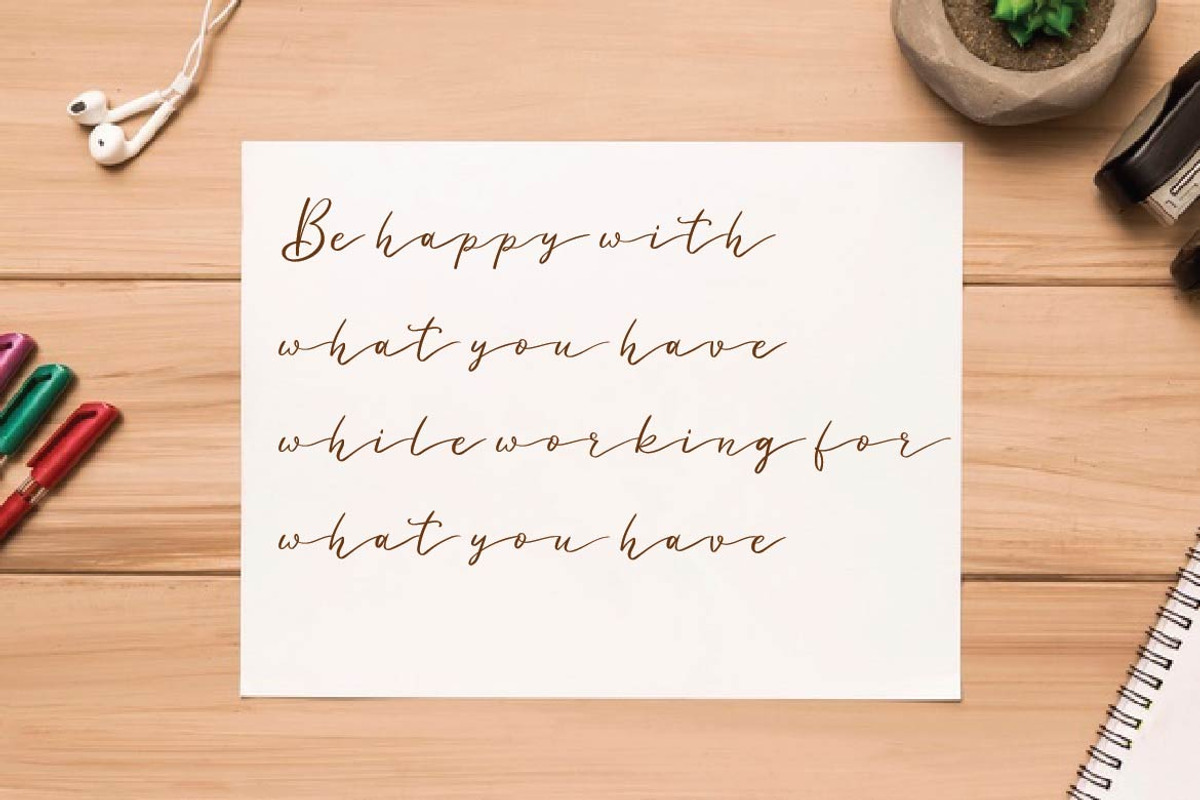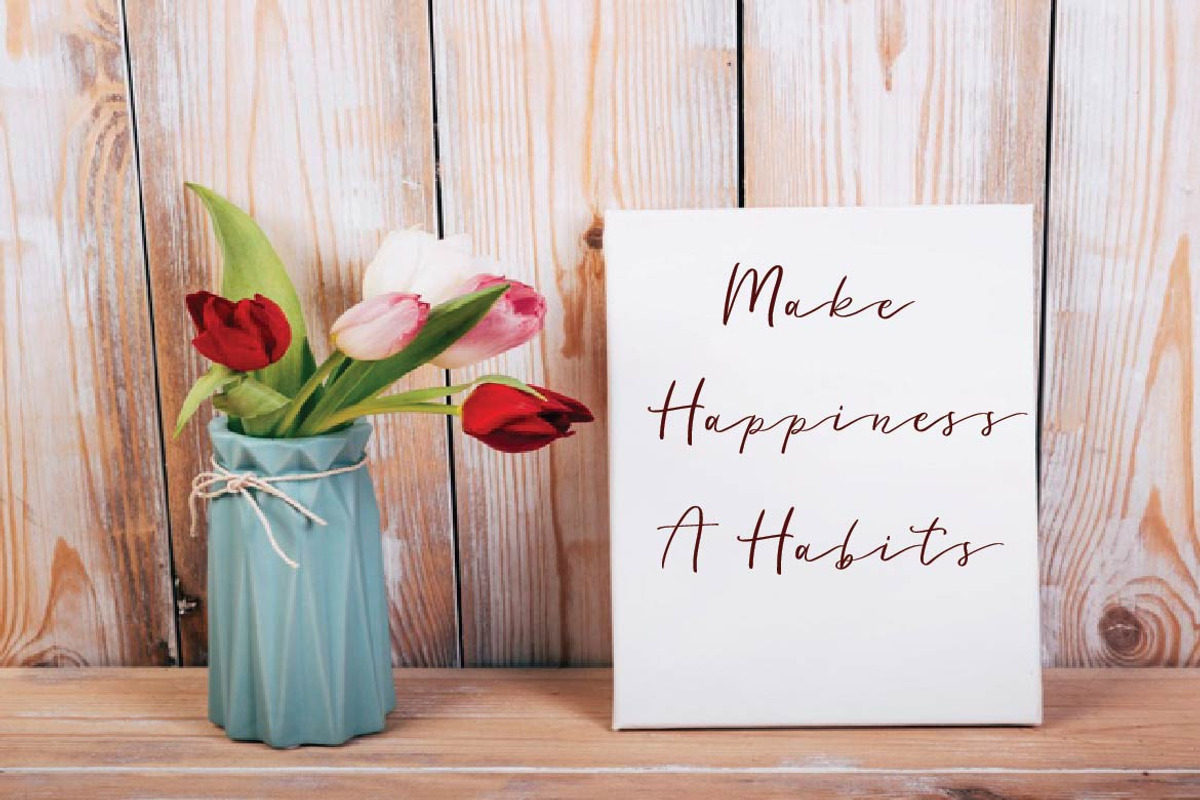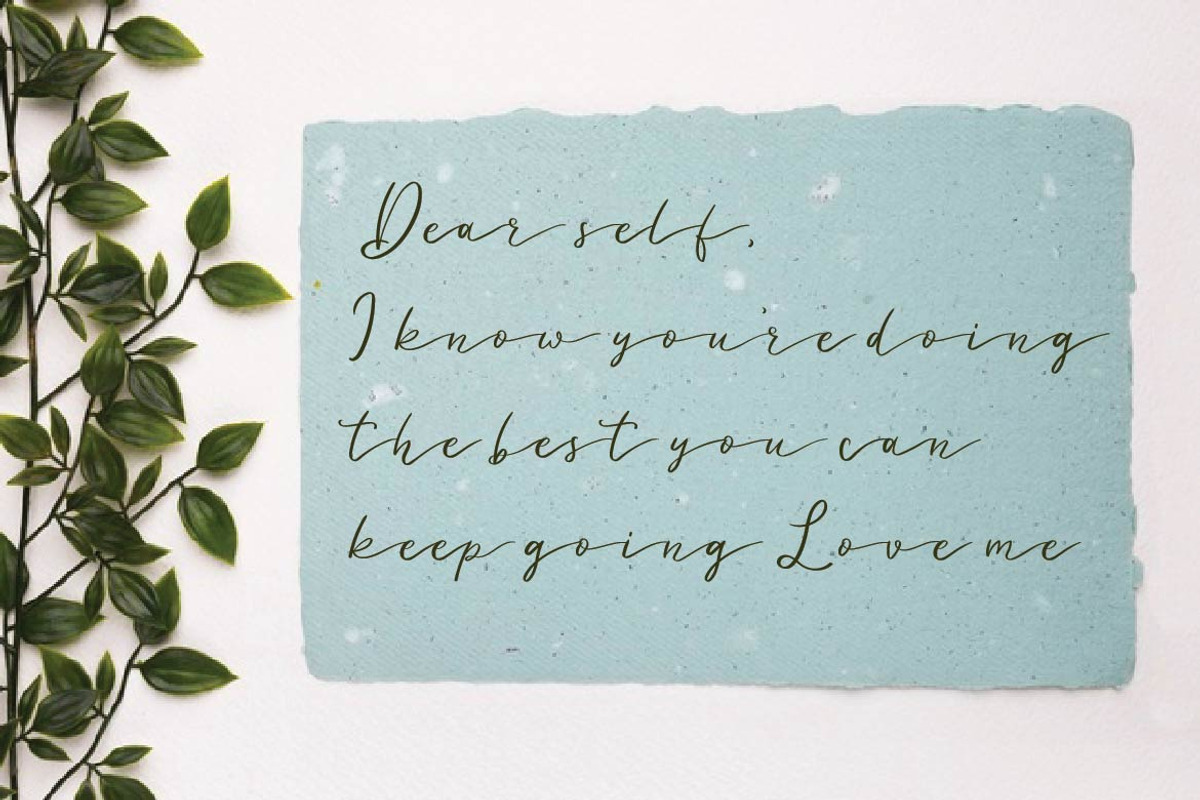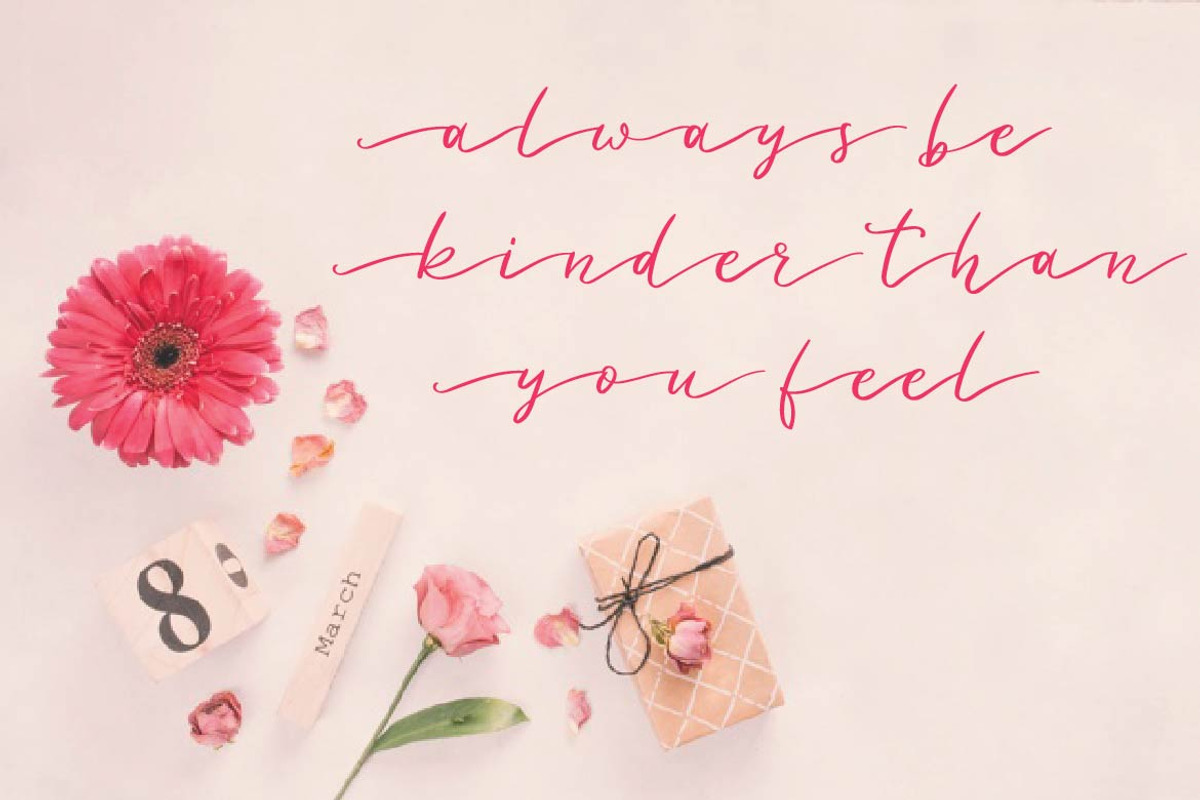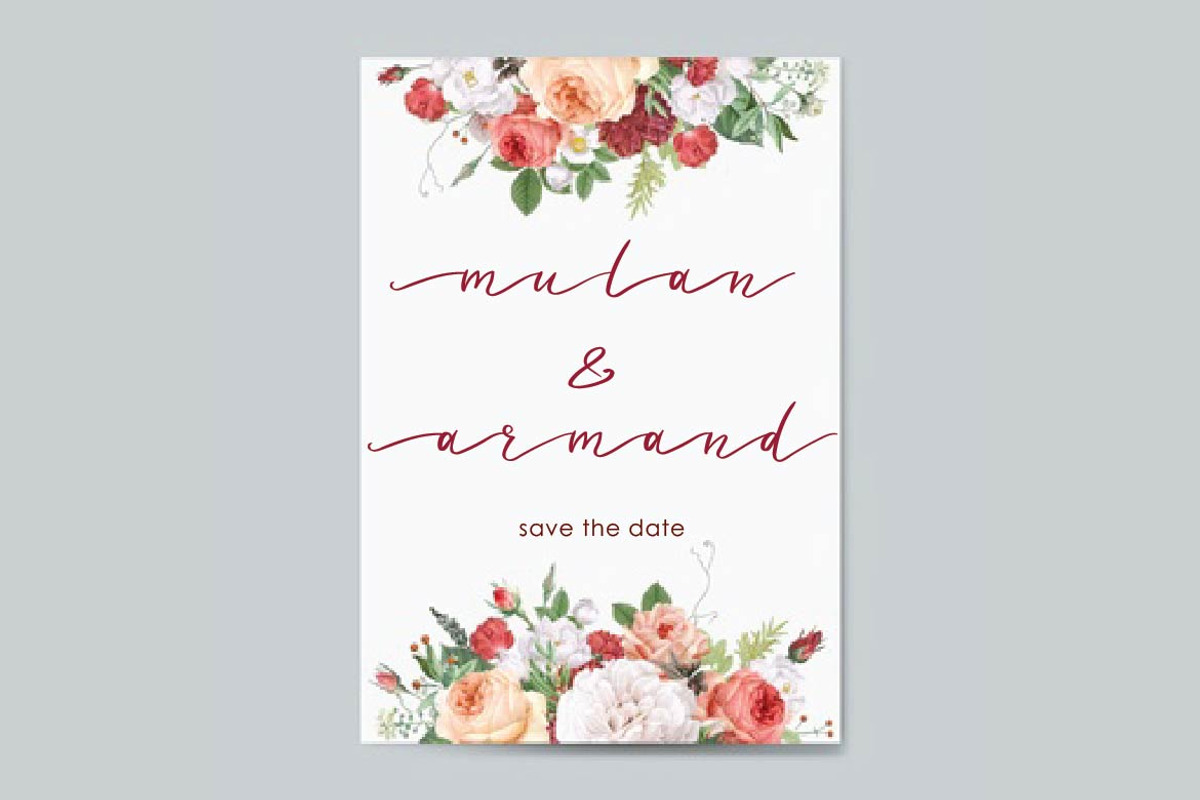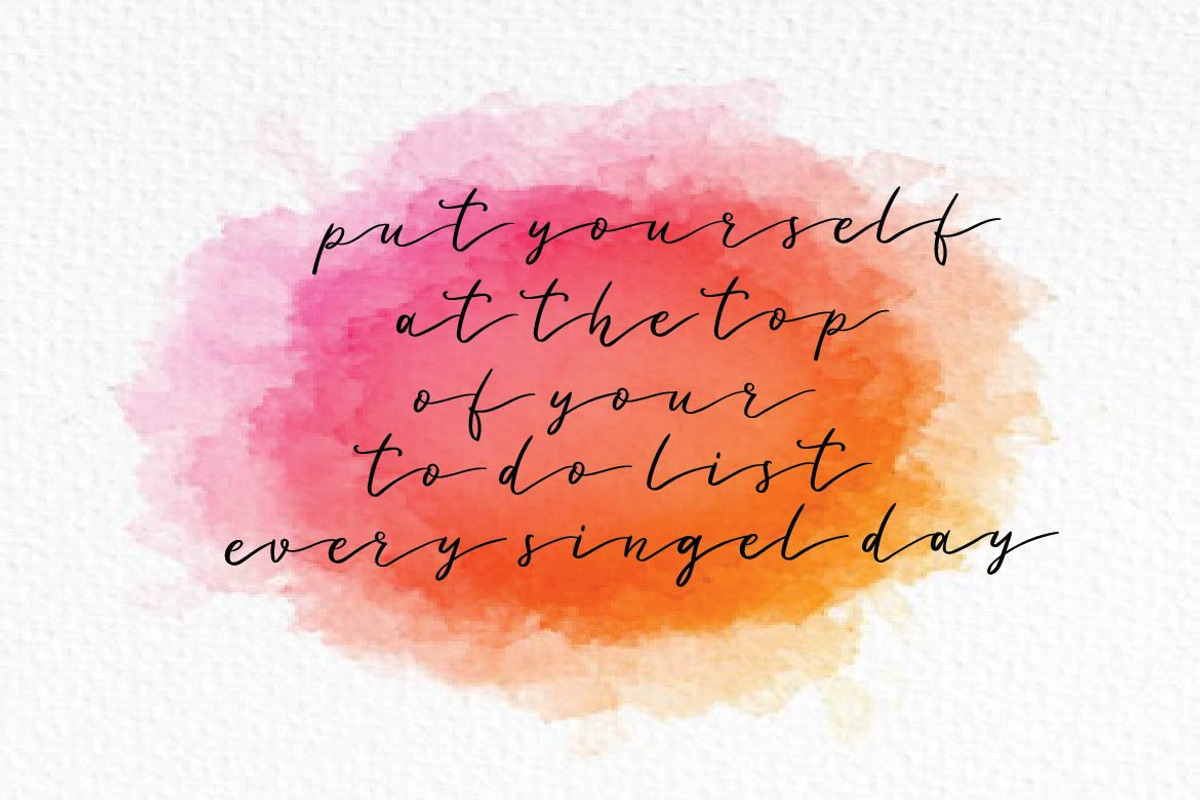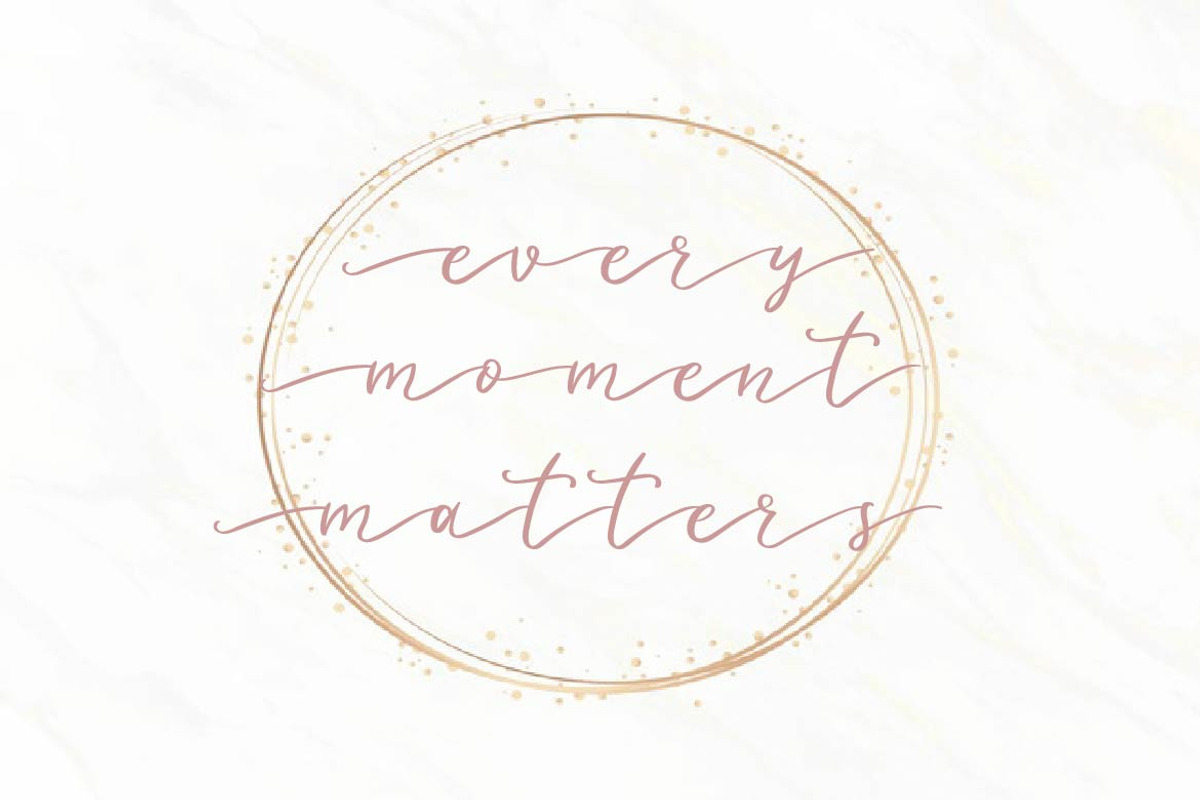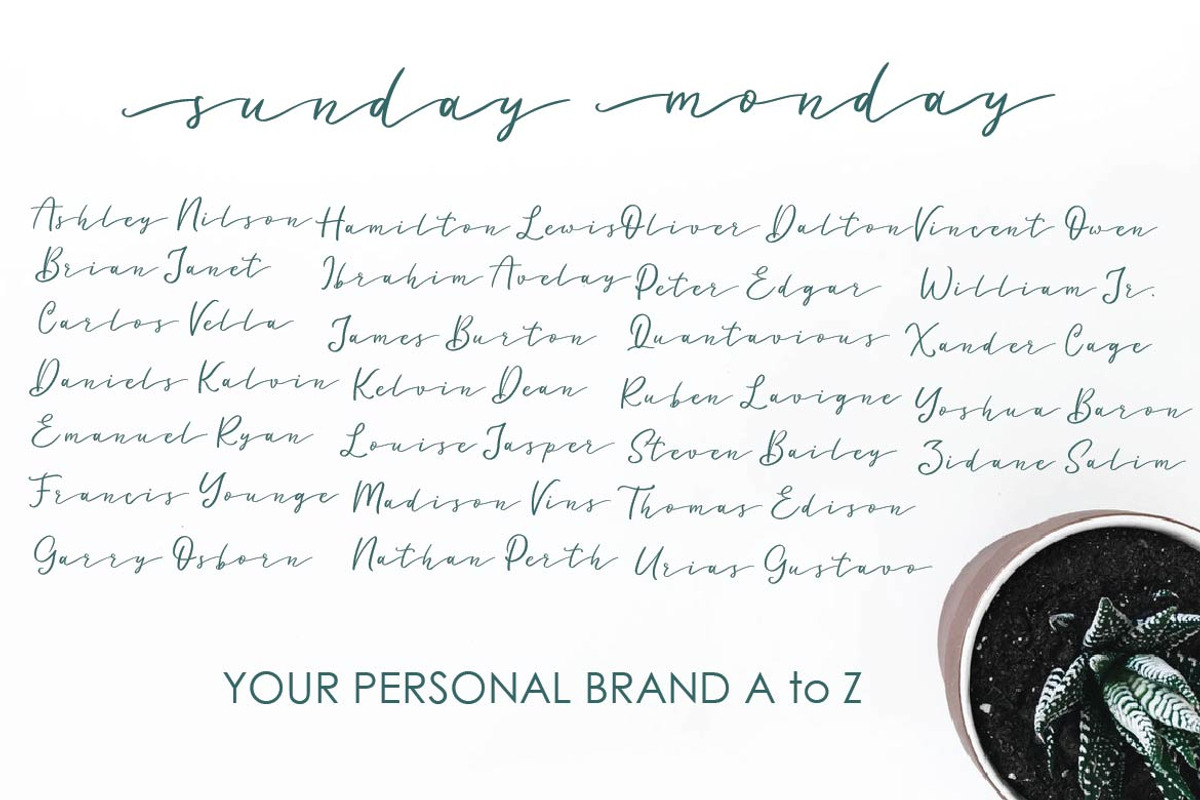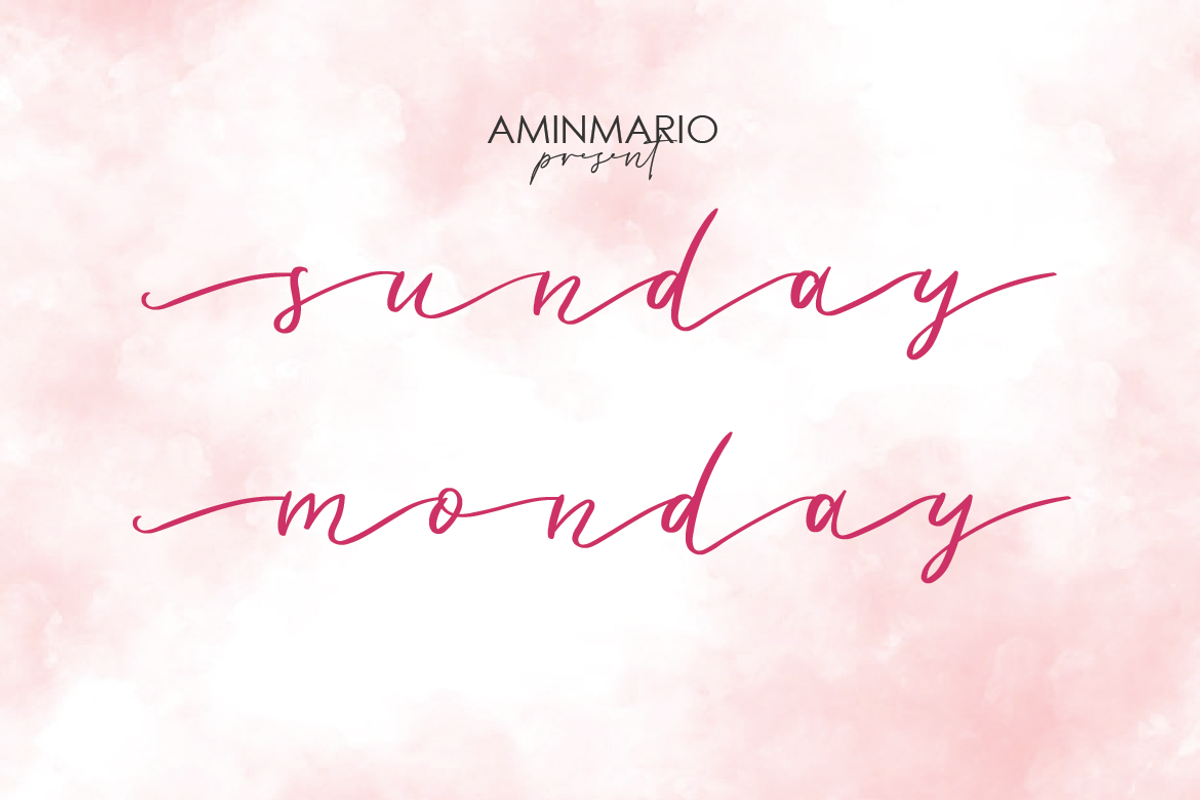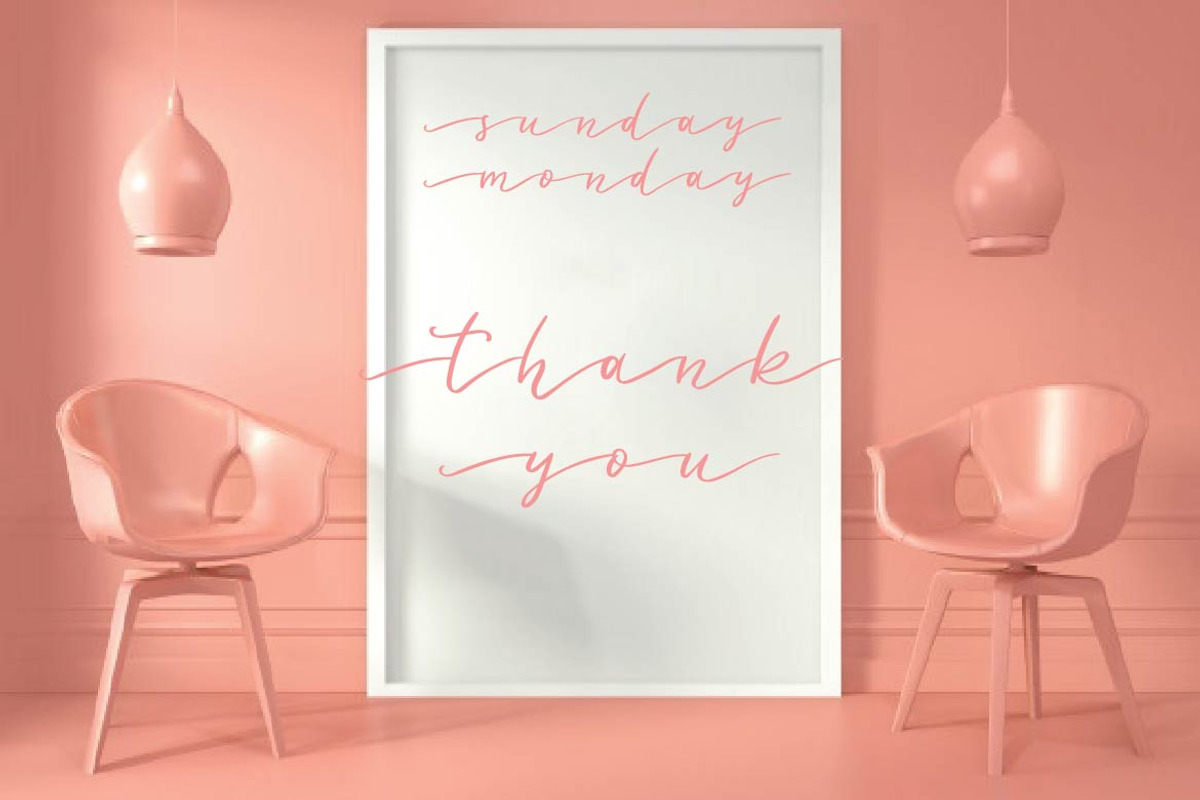
sunday monday
Sunday monday is a modern script, full of personality and curves. This font was designed using quick strokes to create natural handwritten, to give the font a natural look in a digital world. Perfect for any awesome project that need hand writing taste. And good for pairing with Sans or Serif
This is suitable for quotes, invitations, stationery, wedding design, logos, watermarks on photography, signatures, branding, advertisement, album covers, business cards, clothing, magazines, posters, and more!
As usual ,the font comes with many opentype features such as Beginning and Ending Swash. Also support multilingual. You can access all those alternate characters by using Opentype or Glyph program such as Adobe Illustrator cs,Adobe Photosop cc, Adobe InDesign, etc.